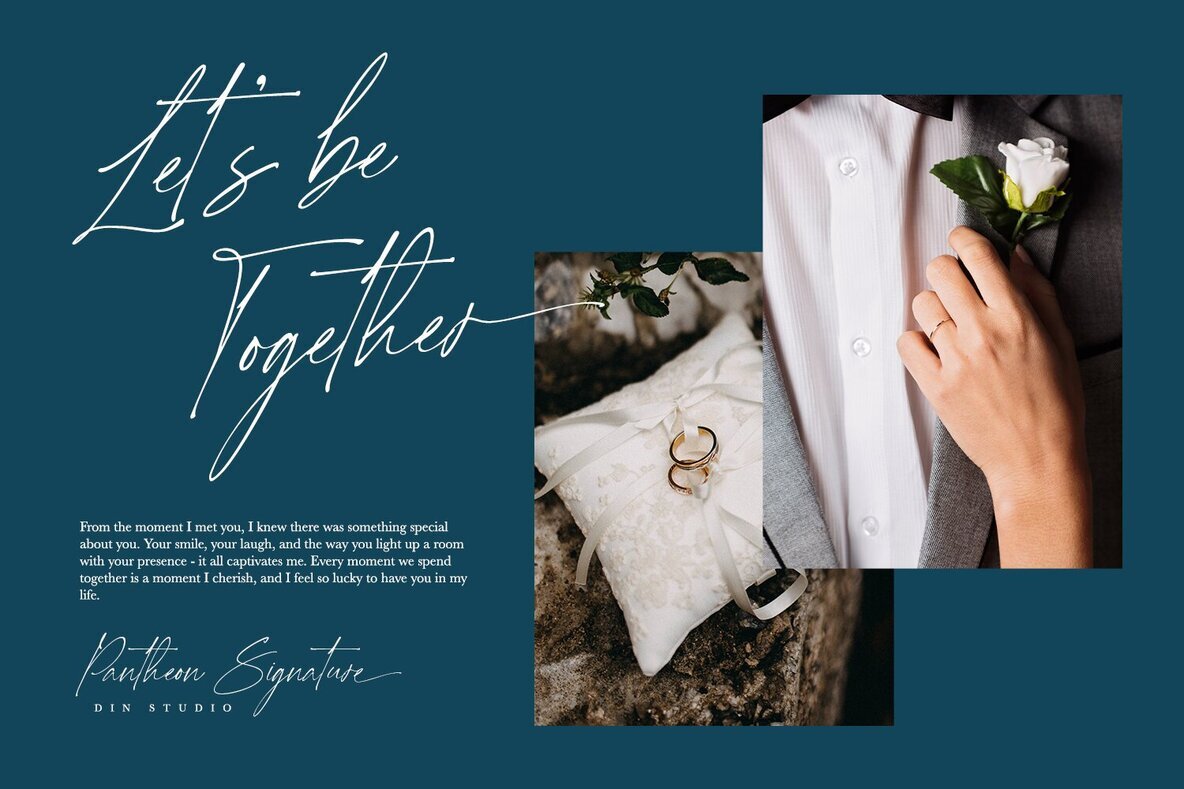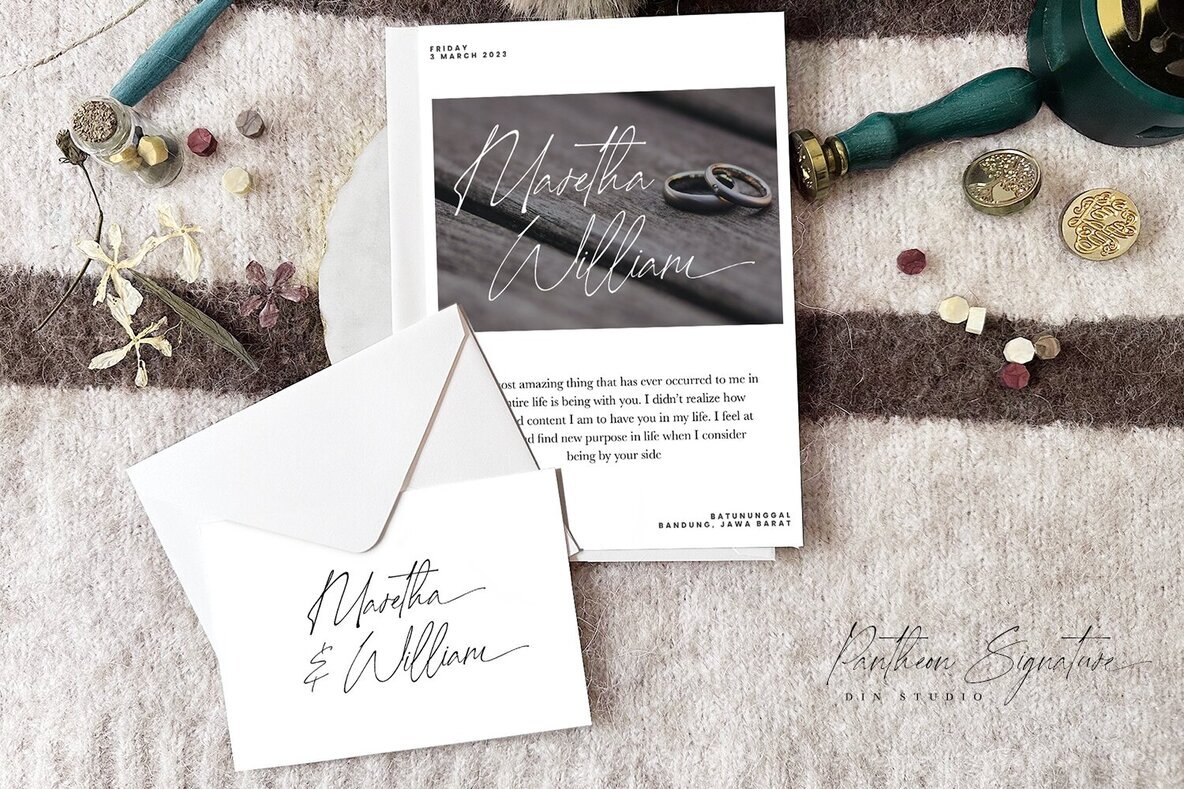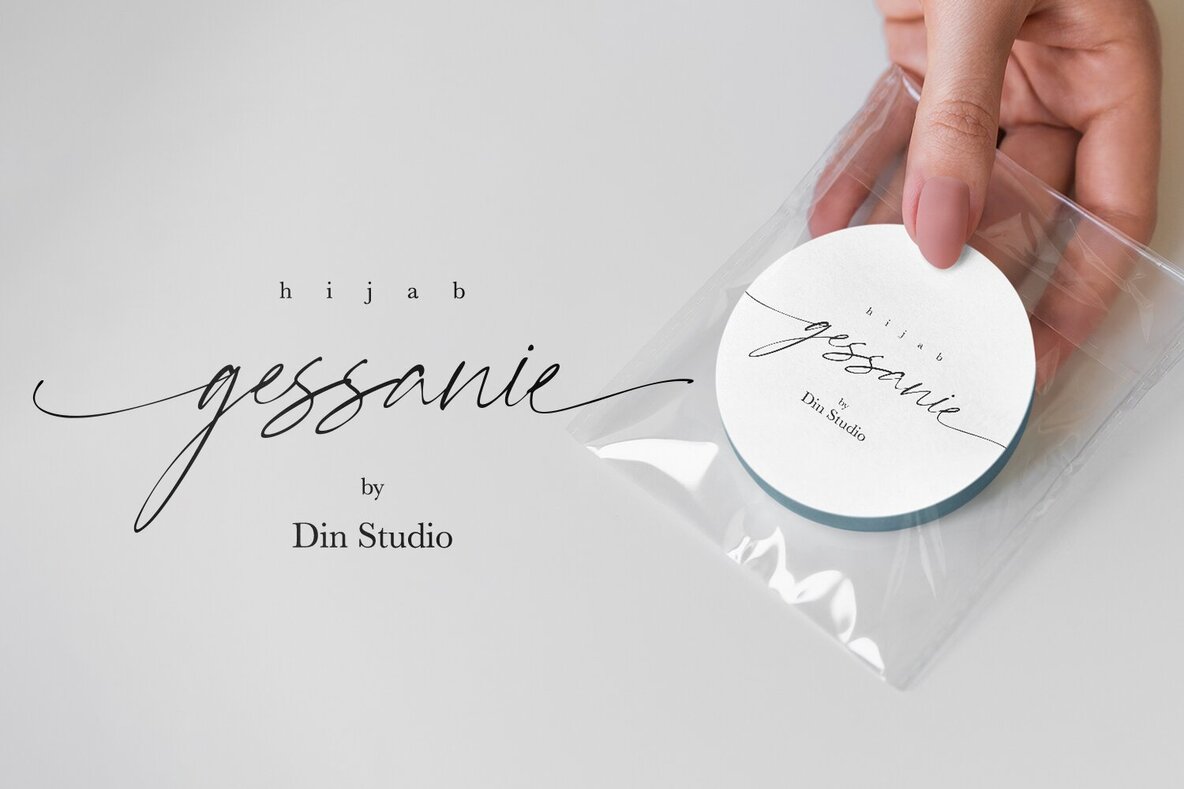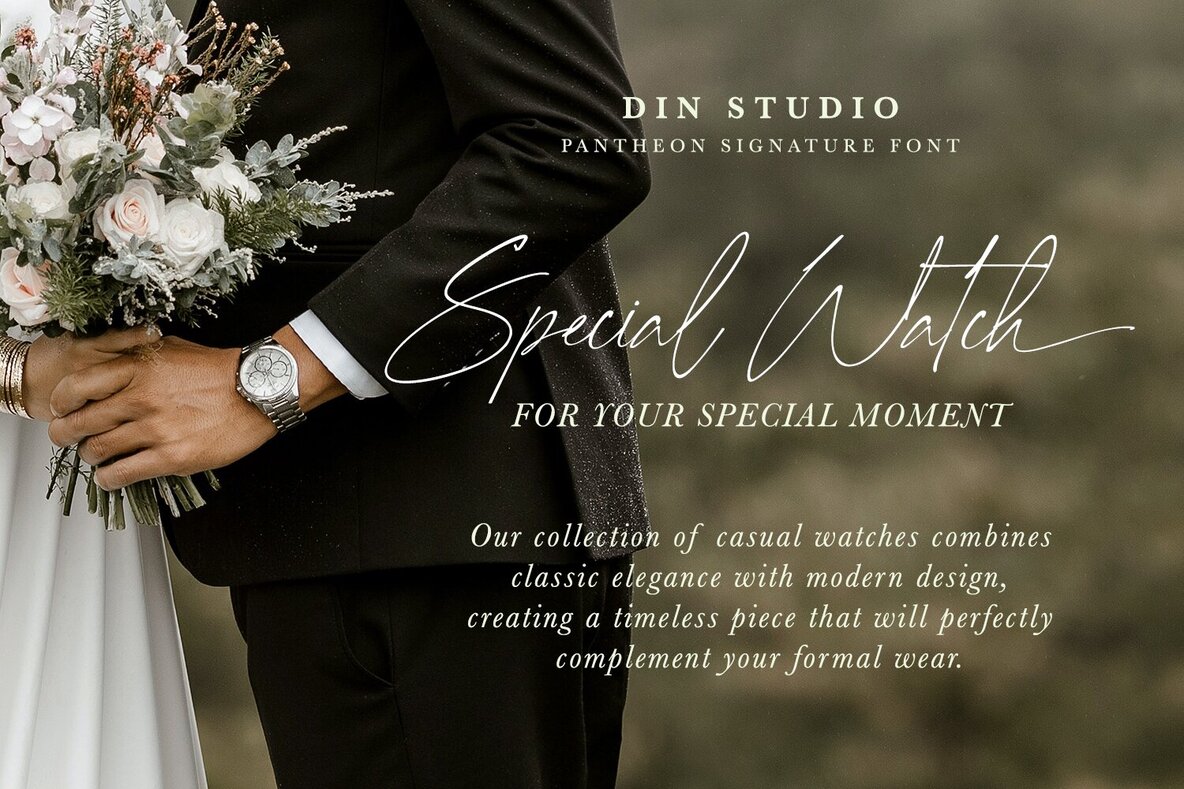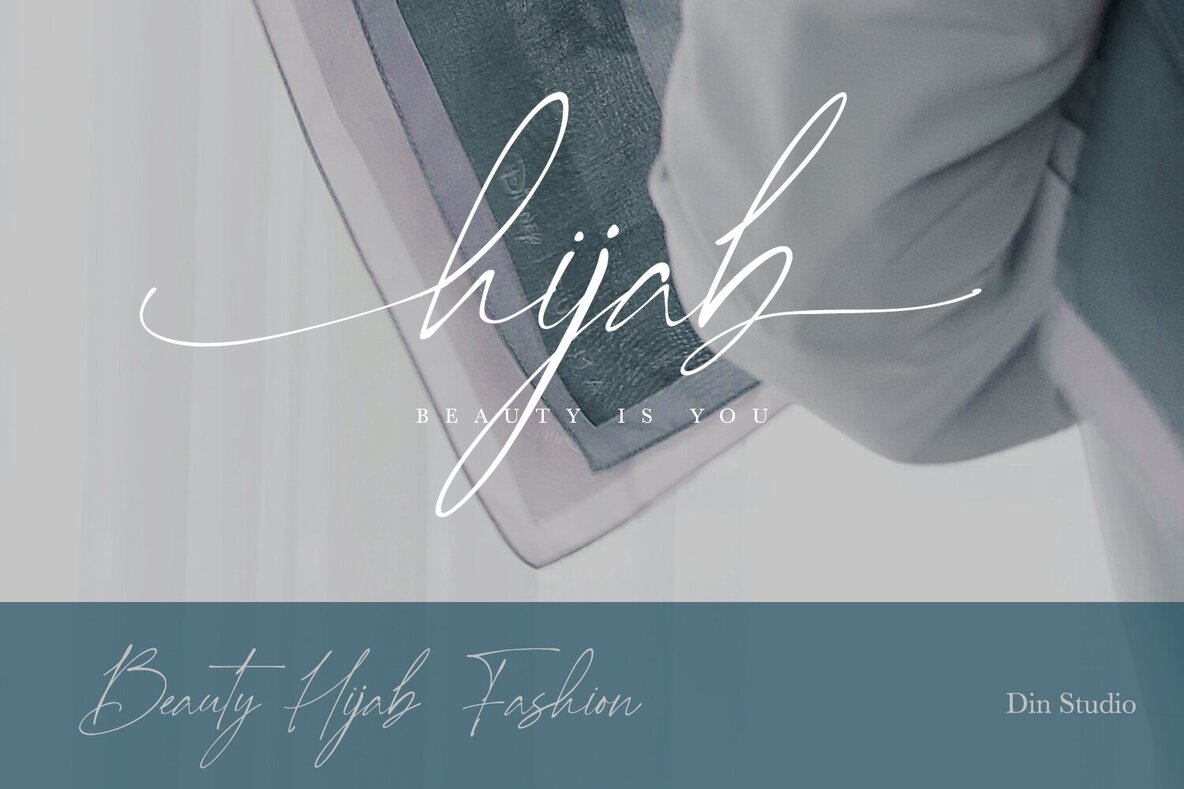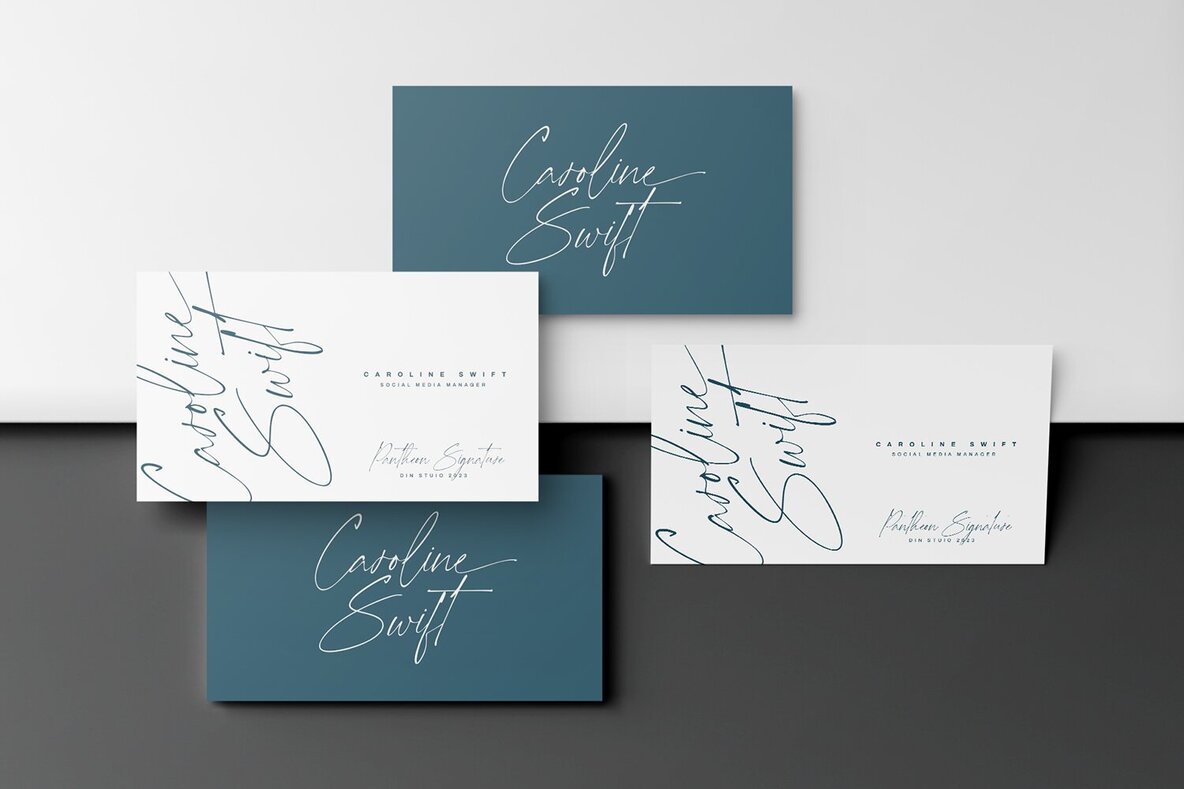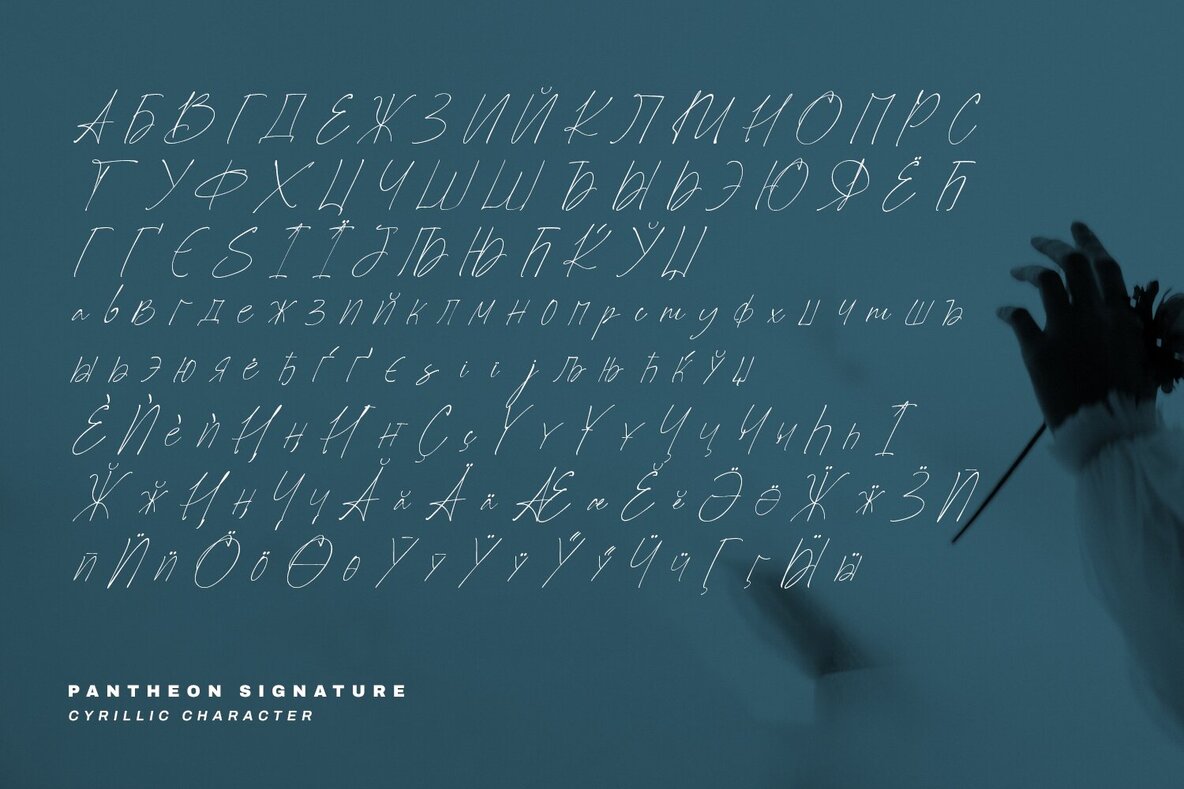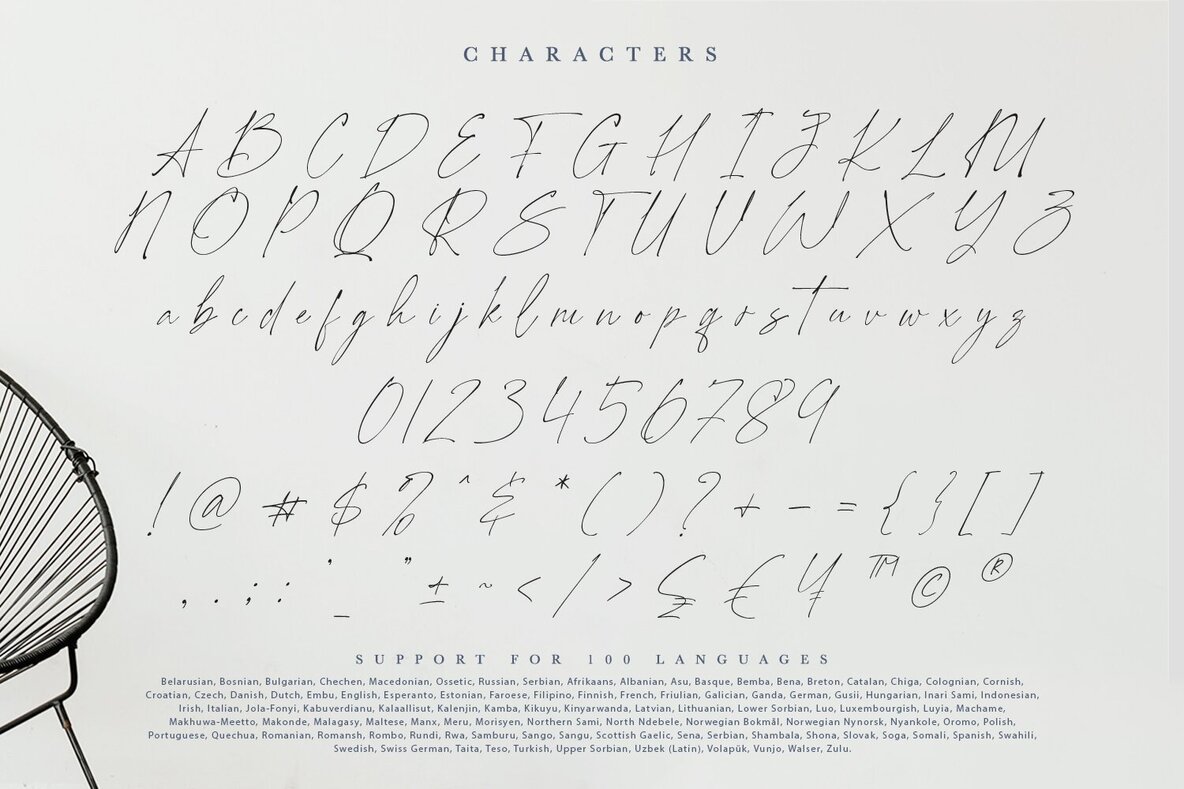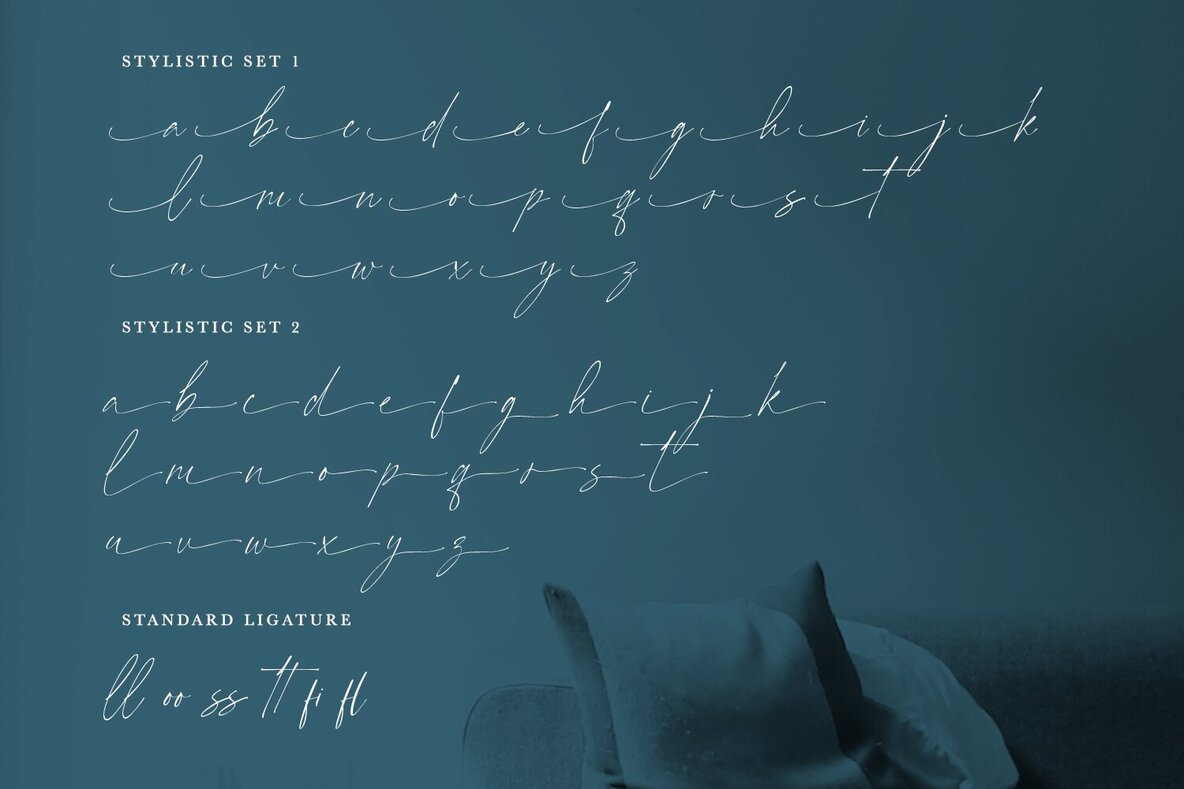
Pantheon Signature Font
Pantheon Signature is a sophisticated handwriting script font designed to enhance your design projects with elegance and detail. Featuring interconnected letters with sharp, curvy strokes, this font exudes a modern yet timeless romantic flair. Ideal for both large and small text sizes, Pantheon Signature is perfect for designs that require a professional and refined touch. Its versatility makes it suitable for a range of aesthetic needs, from branding and headings to magazine covers and greeting cards. Features:
This font offers a robust set of features that includes ligatures, stylistic sets, multilingual support, and numerals with punctuations, all of which enhance its functionality across various applications. Its PUA encoding ensures easy access to special characters, making it an excellent choice for a diverse array of design projects, such as invitations, quotes, social media graphics, and more. Explore its potential by examining the font preview and discover how this elegantly crafted font can elevate your creative endeavors.